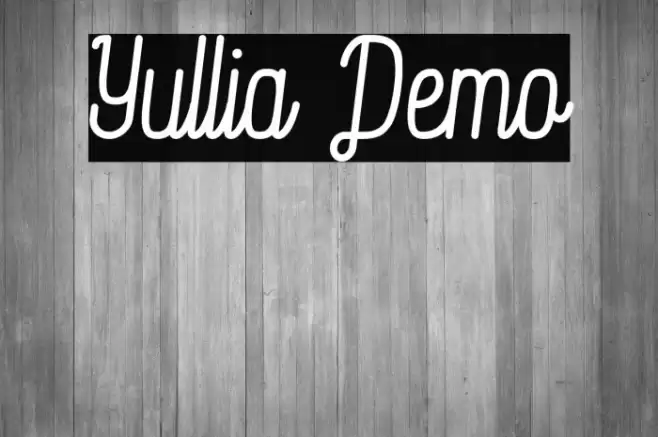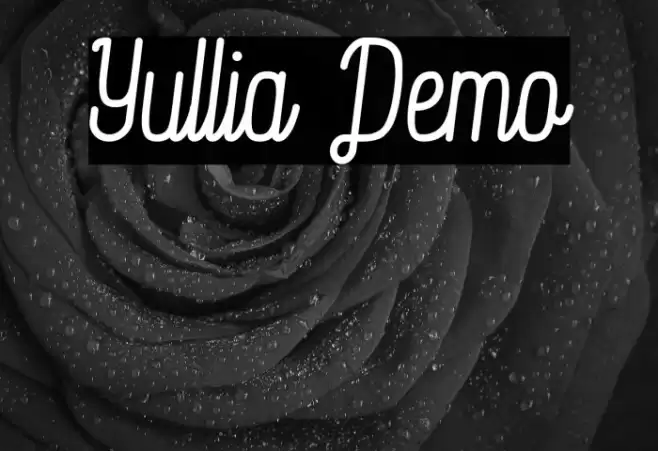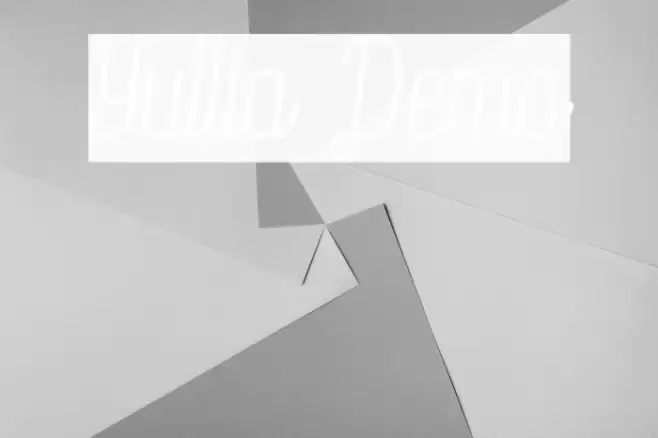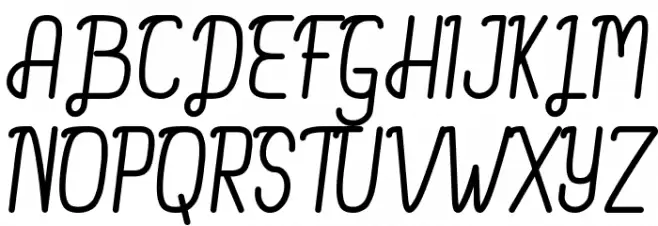
Yullia Demo Font
Yullia Demo Description
This font features a playful and flowing script style, characterized by its smooth, continuous strokes and rounded edges. The uppercase letters are tall and slightly narrow, with a consistent looped design that adds a whimsical touch. The lowercase letters maintain a cohesive flow, with some characters extending slightly below the baseline, enhancing its casual elegance. The numerals and special characters are designed to match the overall aesthetic, ensuring a harmonious appearance across all text. This font's unique style makes it stand out, offering a blend of modernity and charm.
A playful, flowing script font with smooth, continuous strokes and rounded edges from Regular fonts.